Free Open Source Icon Web Fonts
If a picture is worth a thousand words, then what is an icon worth? At least a sentence or two, right? And icons can serve all kinds of important purposes in the design of a web page. From social media links to Twitter, Facebook, and Google+, to functional buttons like print, info, close, and comment, icons can convey complex ideas in minimal space and without the need to be translated into multiple languages.
Furthermore, if you can find the icons you need in a font, you can avoid using graphics and ensure that they will look razor sharp at any size you want.
And now with the help of a site called We Love Icon Fonts you can access hundreds of icons for your websites in the form of web fonts.
We Love Icon Fonts works a lot like Google Web Fonts, in that you start by browsing the available fonts. When you find one with an icon you want, you just click to add it to a collection.
Then you can simply grab the code that you need to put in your HTML and CSS to add the fonts and thus the icons to your site.
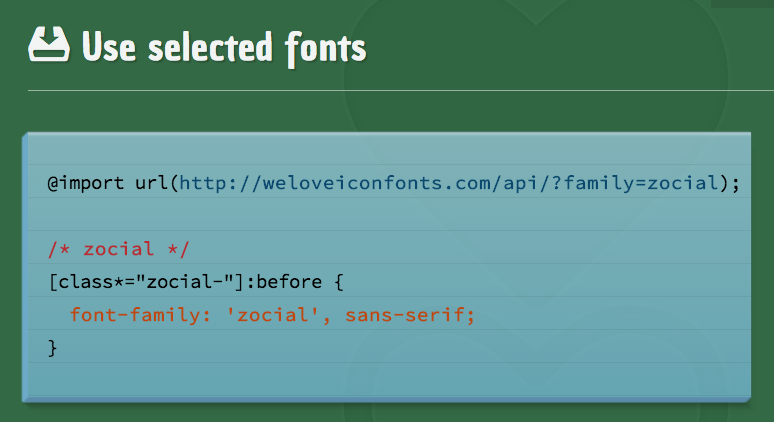
The site currently features eight collections of icons including web brands (Amazon, Adobe, Yahoo!, Facebook, Twitter, Vimeo, Google, Skype, LinkedIn, etc), plus pictograms, emoticons, cartography symbols, and much more.